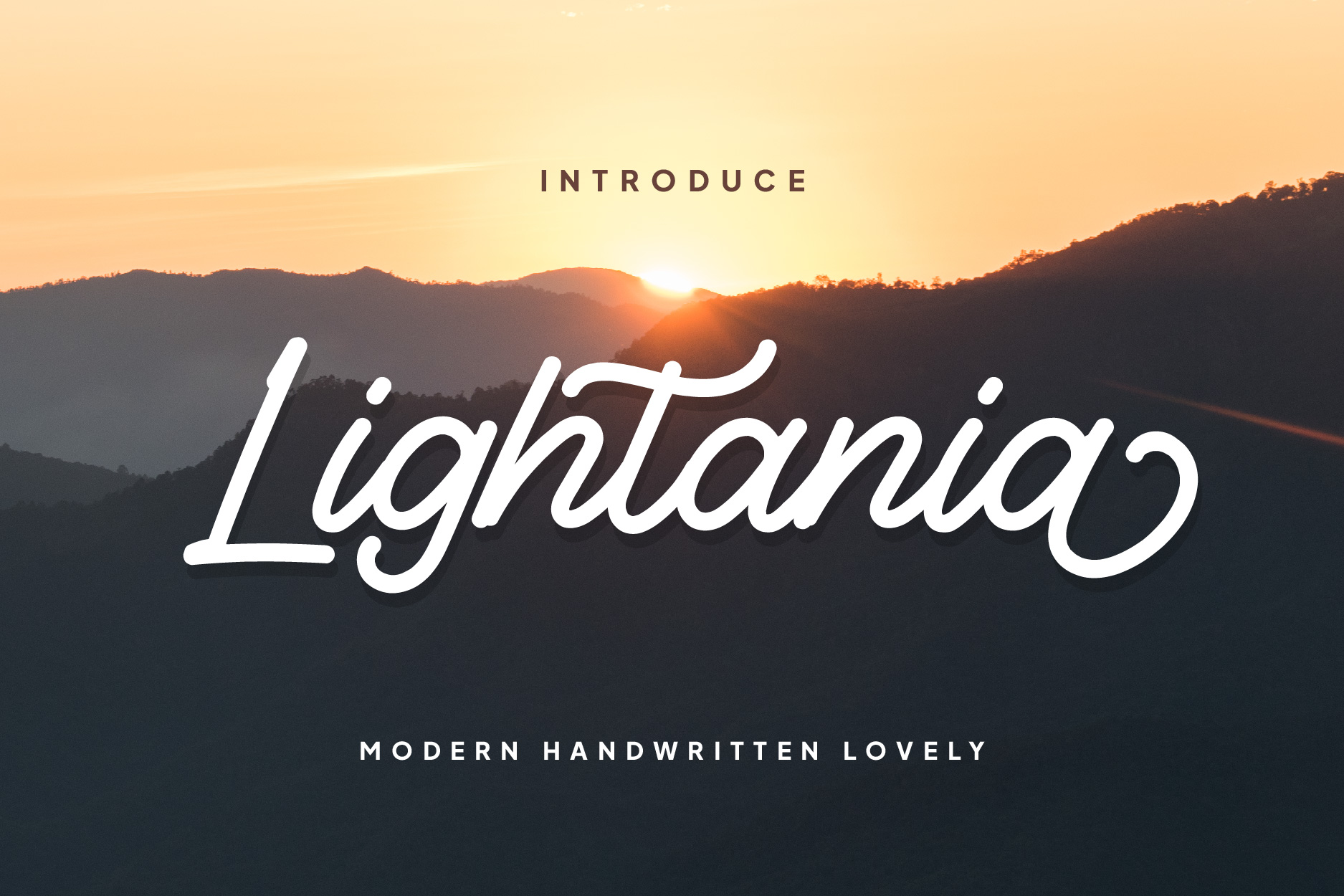
Lightania Font
Designed by Agung Kreatif
About Lightania
Lightania is a versatile and easy-to-use modern handwritten lovely font. This font is a great choice for designers who want to add a touch of love and warmth to their projects.
Lightania is a handwritten font designed to bring a sweet, feminine, and personal touch to your designs. This font is inspired by modern calligraphy with a playful and unique touch.